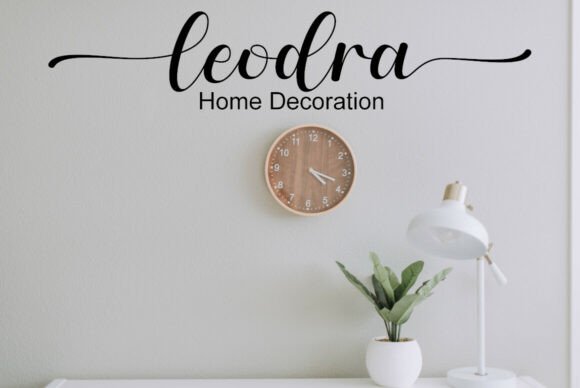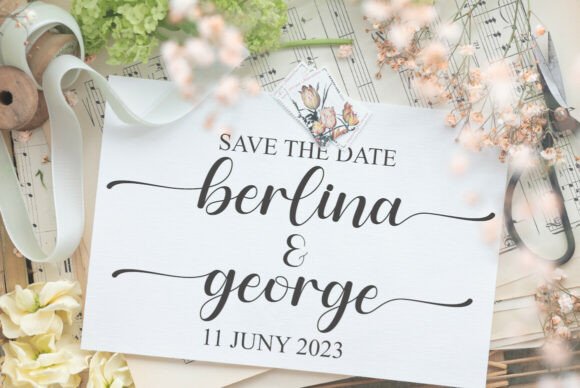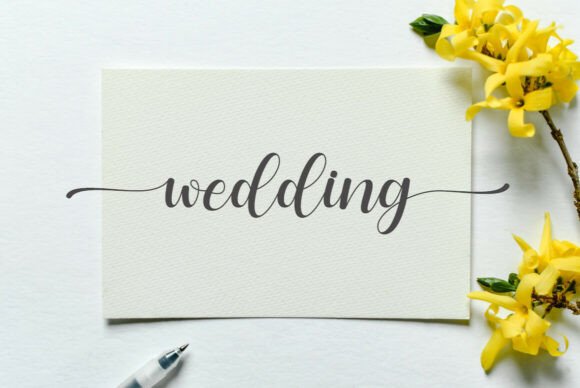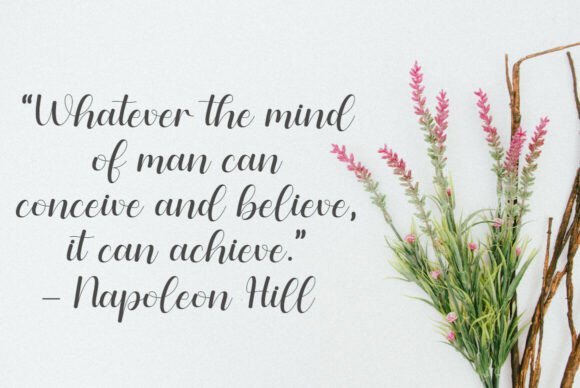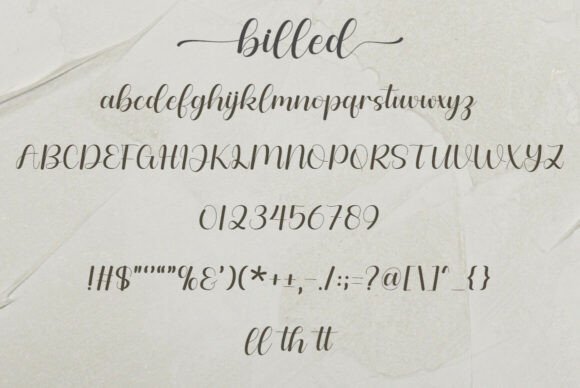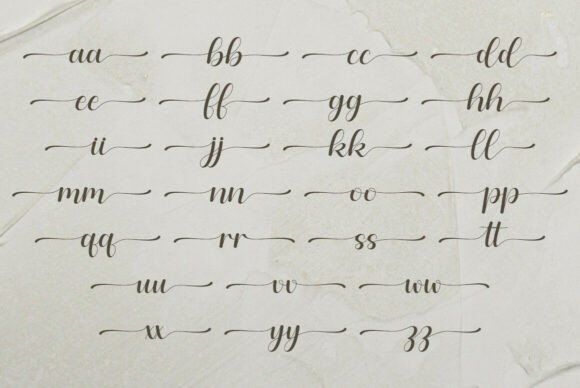
Unleash Your Creativity with the Billed Font
Have you ever stared at a blank page, waiting for the perfect font to spark your next creative project? I know I have. There’s something magical about the moment when the right typography brings a design to life. For designers, finding the perfect font can be the key to unlocking a project’s full potential.
That’s where the Billed Font comes in – a beautiful, elegant handwritten typeface designed to elevate your designs. Whether you’re working on logos and branding, social media posts, or advertisements, Billed Font is the perfect addition to your toolkit. With its delicate touch and PUA encoding, accessing all the glyphs and alternates is a breeze, giving you the freedom to get creative and experiment with new ideas.
Billed Font Key Features
- Unique Characteristics: Billed Font features a unique blend of modern and vintage elements, with intricate details and ornaments that add a touch of elegance to any design.
Billed Font Review
Overall, I’m quite impressed with the Billed Font. The unique and modern aesthetic ✨ is sure to catch attention and elevate any design. The font’s highly customizable nature, with options for various weights and styles, makes it an excellent choice for designers looking to add some personality to their projects.
The clean and crisp lines ✨ make the font easy to read, even at smaller sizes, and the bold accents ✨ add a touch of sophistication. I particularly appreciate the wide range of language support ✨, making it a great option for designers working with international clients.
- ⚠️ The font may not be suitable for very small text sizes, as the bold accents can become overwhelming.
- ⚠️ Some users may find the font’s modern style too trendy or overpowering.
In conclusion, the Billed Font is a solid choice for designers looking to add some visual interest to their projects. While it may have some limitations, its unique aesthetic and high customization options make it well worth considering.
Tips for Getting the Most Out of Billed Font
To get the most out of the Billed font, try using it in conjunction with other bold, modern fonts for a sleek and contemporary look. You can also experiment with different font sizes and styles to add visual interest to your designs.
The Billed font is commonly used in modern branding, logos, and marketing materials. It’s also a great choice for creating a professional and sleek look in presentations, reports, and other business documents.
Alternatives to Billed Font for Designers
Great Vibes is a modern, elegant script font perfect for creating a luxurious and sophisticated look. It’s ideal for use in wedding invitations, luxury branding, and high-end advertising. Compared to Billed Font, Great Vibes has a more refined and polished feel, making it suitable for high-end designs.
Pacifico is a beautiful, cursive font with a relaxed and casual feel. It’s perfect for use in beach-themed designs, travel brochures, and outdoor advertising. Compared to Billed Font, Pacifico has a more laid-back and friendly tone, making it ideal for designs that require a carefree atmosphere.
Carolyna Pro is a elegant and sophisticated script font with a feminine touch. It’s ideal for use in high-end fashion branding, luxury packaging, and elegant advertising. Compared to Billed Font, Carolyna Pro has a more refined and polished feel, making it suitable for high-end designs that require a touch of sophistication.